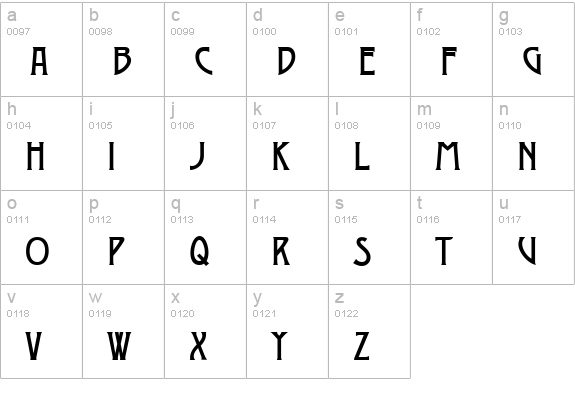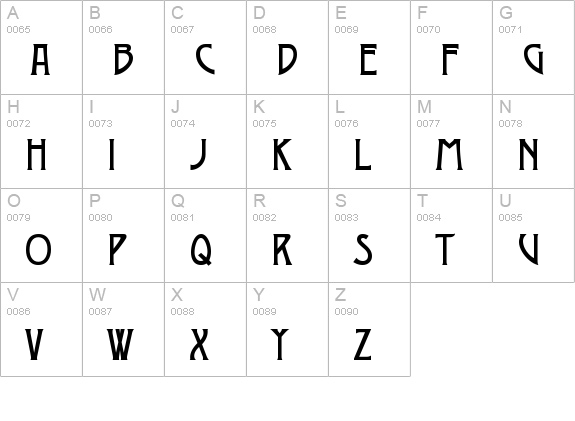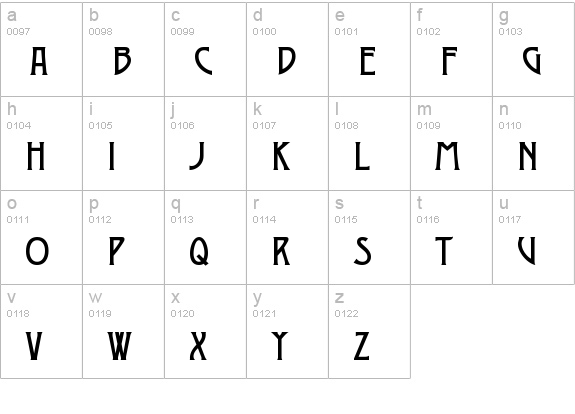
Moderno Two Font Details
Moderno Two font is a stylish and versatile typeface that exudes contemporary elegance. Its clean lines and modern aesthetic make it the perfect choice for a wide range of design projects, from branding to editorial design. The sleek and sophisticated look of Moderno Two font adds a touch of class to any design, while its readability ensures that your message will be effectively communicated to your audience. The best part? Moderno Two font is available for free download at FontsMarket.com. This means that you can easily access this high-quality font without breaking the bank. Whether you're a seasoned designer looking to add a fresh new font to your collection or a beginner in need of a versatile typeface, Moderno Two font is the perfect choice. Download it today and elevate your design projects with this stunning and elegant font.